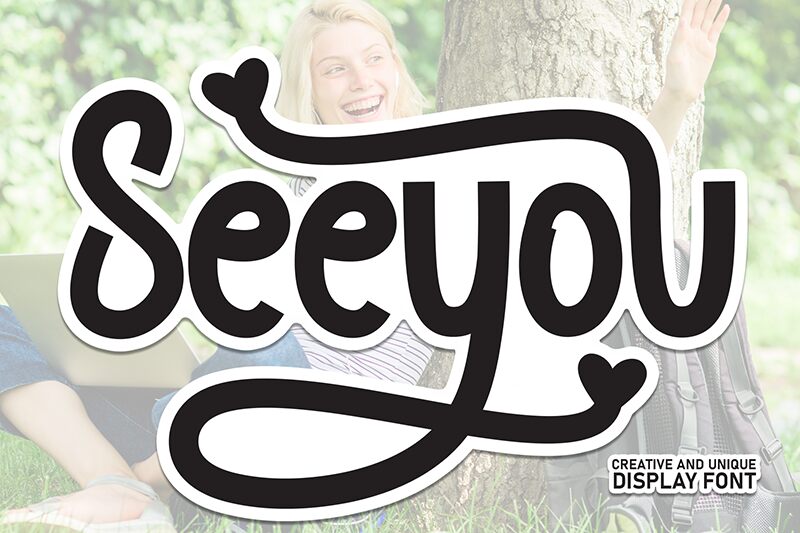
Seeyou
Seeyou font by Scratchones is a free handwritten font that exudes whimsical charm and questionable design. Its condensed width gives it a retro feel. This blend between classic attribution and modern flair guarantees attention wherever the font is used.
With its charming appeal, Seeyou suits product packaging, labels, branding projects, business cards, album covers, posters, stickers, mugs, t-shirts… A casual hand-lettered finish makes someone feel like the print has been personally lettered to them in particular.